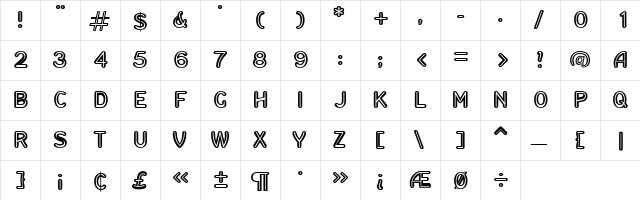
RoundSans Regular
Design Context for RoundSans Typeface
RoundSans uses gentle rounded endings to create a warm, inviting typographic personality — less corporate than geometric sans, more refined than playful display fonts.
A natural fit for tech startups, health and wellness brands, children's products, and friendly consumer apps.
Font Pairing: Pairs well with a rounded or humanist sans for body copy, maintaining the friendly tone without relying on RoundSans to carry extended reading.
Pro Tip: Pair RoundSans with a geometric sans for a balanced system — the rounded softness works as a warm counterpoint to harder-edged companions.